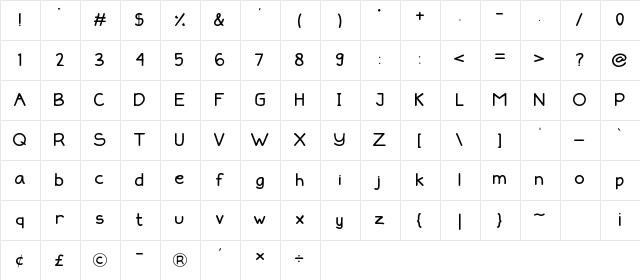
Brantone Regular
| Designer | Wah Creative |
Design Context for Brantone Typeface
Brantone takes a measured approach to typography — its balanced proportions and neutral character make it a reliable workhorse for both digital and print work.